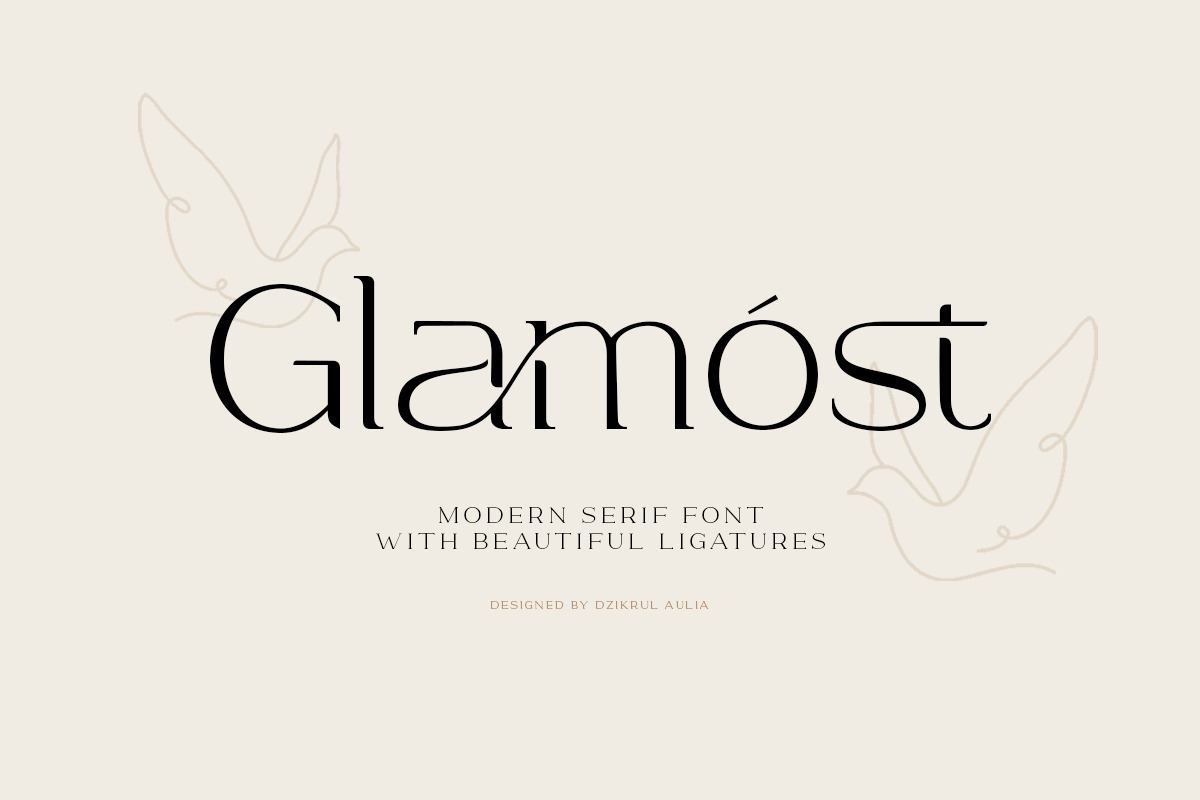
Glamost – Modern Ligature Font Free Download is a luxurious and contemporary typeface designed to elevate your branding and editorial projects. With stylish ligatures, elegant curves, and a sleek serif foundation, Glamost is perfect for logos, magazine titles, fashion labels, wedding stationery, and upscale packaging.
Its refined letterforms and creative ligature combinations add a sense of sophistication and individuality to your typography. Whether you're crafting a minimalist layout or a bold identity, Glamost delivers high-end appeal with modern versatility.